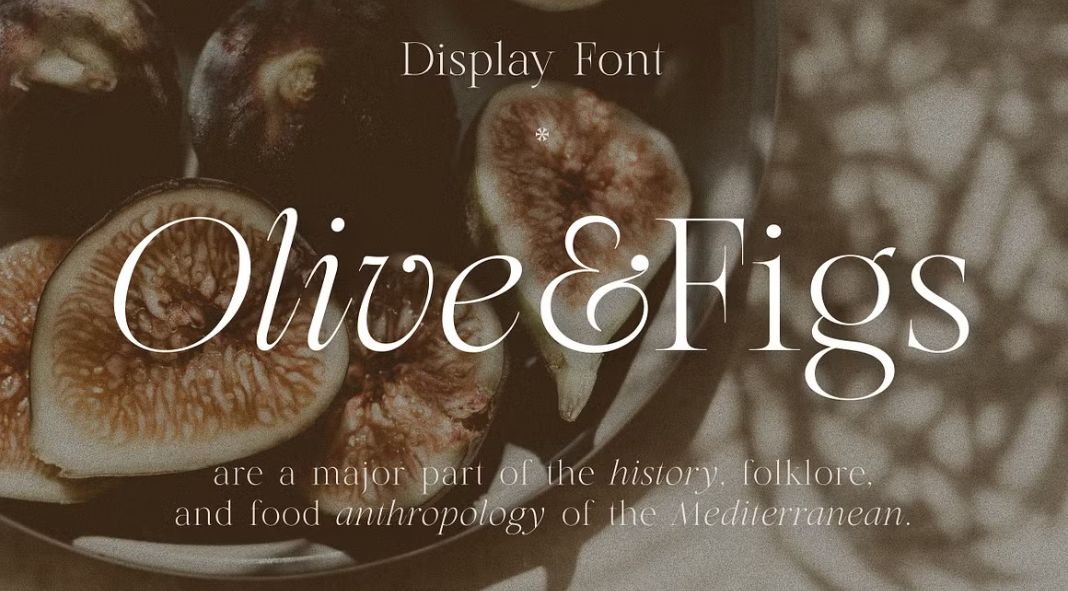
A Taste of Tuscany: Introducing the Olive & Figs Font
Close your eyes and imagine yourself strolling through a sun-drenched Italian vineyard, the scent of ripe figs and olive groves filling the air. Now, open your eyes and behold the Olive & Figs font, a typeface that captures the essence of classic Roman elegance with a touch of modern artistry.
Designed by Harmonais Visual, Olive & Figs is a calligraphic serif font inspired by the timeless beauty of Roman culture. Its elegant curves and regal flourishes evoke a sense of sophistication and heritage, perfect for projects that demand a touch of class.
Think of:
- Logos that exude timeless elegance for businesses and brands seeking a touch of history.
- Wedding invitations that set the tone for a sophisticated and romantic celebration.
- Packaging design that elevates your product with a touch of luxury.
- Headlines and titles that command attention and leave a lasting impression.
But Olive & Figs isn’t just about aesthetics. The font is also highly functional. The regular fonts are widely supported by most software, making them easy to use for everyday design tasks.
For those seeking the full artistic expression of Olive & Figs, the script font boasts a large selection of standard ligatures. These custom-connected letters add a touch of artistry and visual intrigue to your text. To unlock the full potential of these ligatures, simply use software that supports OpenType fonts, such as Adobe Illustrator.
With Olive & Figs, you don’t just add text to your design, you add a touch of timeless elegance and artistic flair. So, go ahead, embrace the spirit of the Italian countryside and let your creativity flow with this remarkable font.